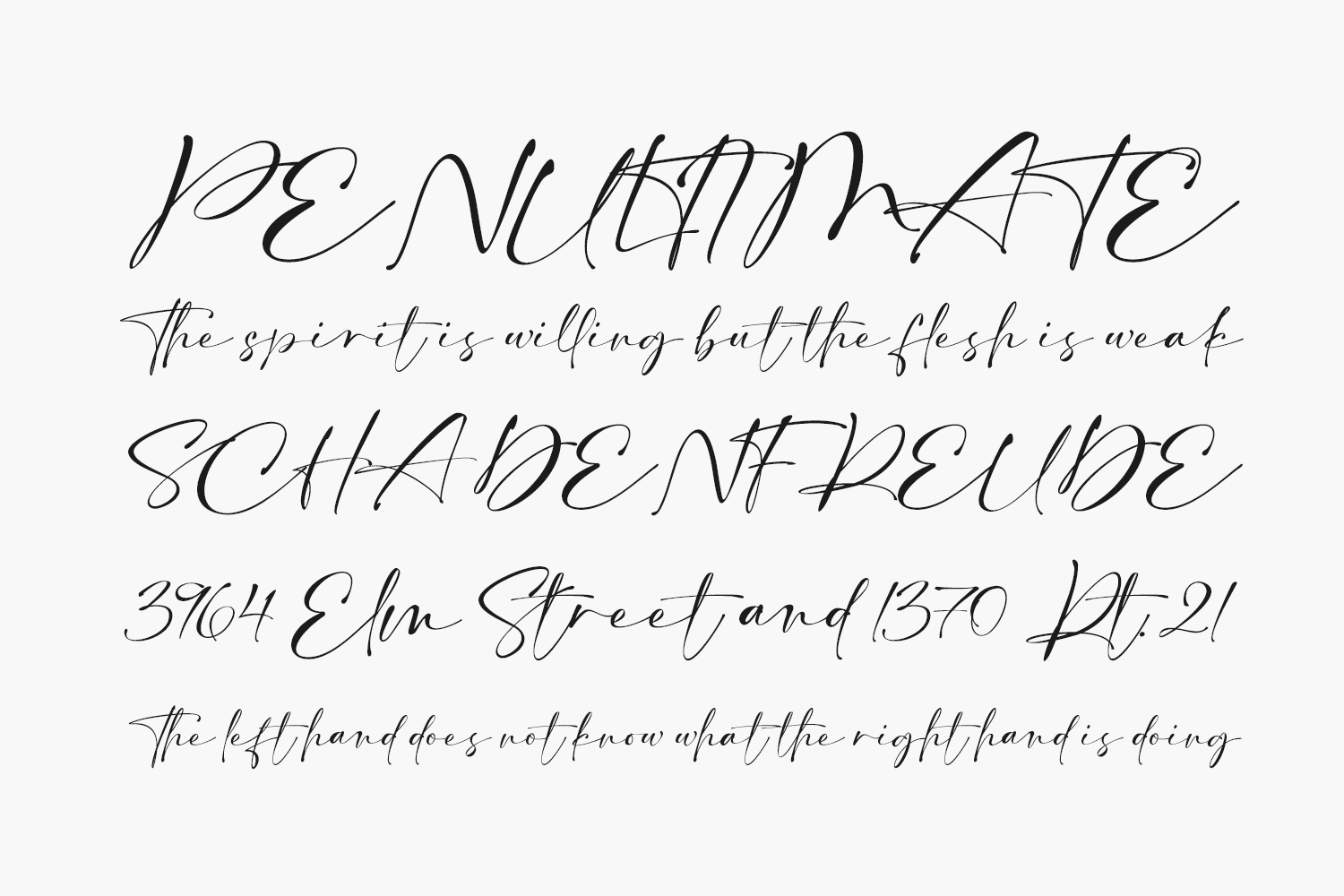
Callient Free Font is a modern signature font, perfect for branding, photography, invitations, quotes, watermarks, advertisements, product designs, social media posts, stationery, labels, and more.
Designed by Riyadh Rahman